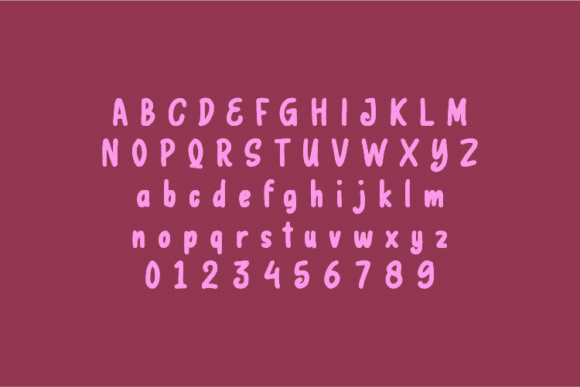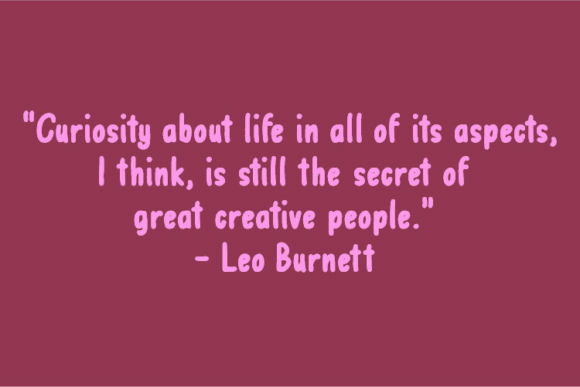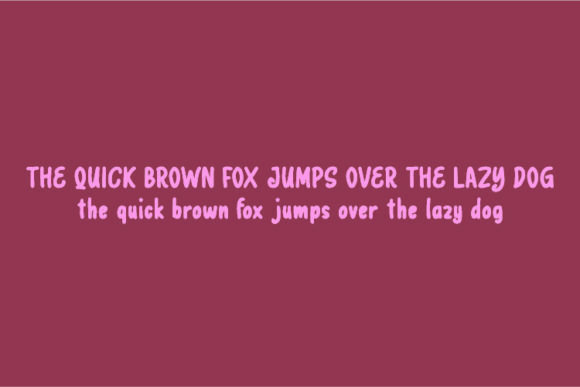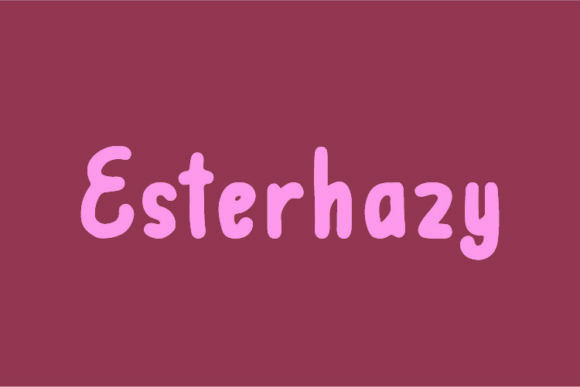
Esterhazy Font: A Clean and Adaptable Display Font for Your Creative Projects
In the world of typography, a font can make or break a design. A well-chosen font can elevate your creation, adding a touch of elegance, sophistication, or playfulness, depending on the context. If you’re a designer, crafter, or simply someone who appreciates beautiful typography, you’ll love Esterhazy Font. This clean and adaptable display font is a wonderful asset to your font library, capable of enhancing any creation, regardless of the topic or theme.
What is Esterhazy Font?
Esterhazy Font is a modern, sans-serif display font designed to be versatile and highly legible. Its clean lines, subtle curves, and balanced proportions make it perfect for a wide range of applications, from headings and titles to logos, posters, and digital media. Whether you’re working on a branding project, a website, or a craft, Esterhazy Font is an excellent choice.
Key Features of Esterhazy Font
- Clean and Adaptable: Esterhazy Font boasts a clean, minimalist design that adapts seamlessly to various contexts and mediums.
- High Legibility: The font’s clear and balanced structure ensures excellent readability, even at smaller sizes.
- Versatile: Esterhazy Font can be used for a wide range of projects, from digital media to print materials.
- Elegant and Sophisticated: The font’s subtle curves and refined lines add a touch of elegance and sophistication to any design.
Benefits of Using Esterhazy Font
So, why choose Esterhazy Font for your next project? Here are just a few benefits:
- Enhance Your Brand: Esterhazy Font can help you create a strong, consistent brand identity that stands out from the crowd.
- Elevate Your Designs: With Esterhazy Font, you can add a touch of sophistication and elegance to your designs, making them more engaging and memorable.
- Save Time: The font’s versatility and legibility save you time and effort, as you can use it across various projects and mediums.
- Stand Out: Esterhazy Font’s unique, refined design helps you stand out in a crowded design landscape.
Who Can Benefit from Esterhazy Font?
Esterhazy Font is an excellent choice for:
- Graphic Designers: Add a versatile, elegant font to your arsenal and take your designs to the next level.
- Crafters: Use Esterhazy Font to create beautiful, professional-looking crafts, such as signs, posters, and cards.
- Web Designers: Enhance your website’s typography with Esterhazy Font, improving user experience and engagement.
- Marketeers: Create compelling, attention-grabbing headlines and titles with Esterhazy Font.
Esterhazy Font is a versatile, elegant, and highly legible display font that’s perfect for designers, crafters, and anyone looking to elevate their typography. Its clean lines, subtle curves, and balanced proportions make it an excellent asset to your font library. Whether you’re working on a branding project, a website, or a craft, Esterhazy Font is sure to enhance your creation and help you stand out in a crowded design landscape.